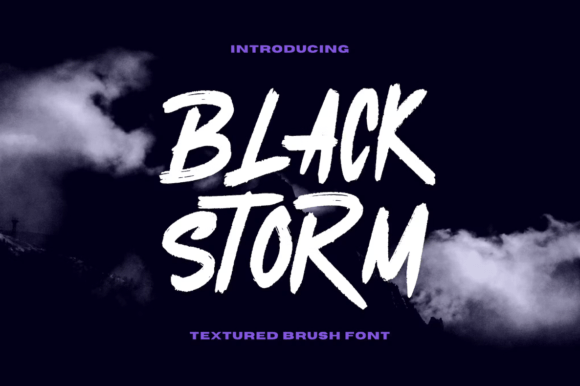
The Power of Black Storm: Unleashing a Bold and Assertive Font
I still remember the frustration of working on a project, pouring my heart and soul into it, only to be held back by one thing: the font. I was creating a poster for a men’s grooming product, and I needed a typeface that exuded masculinity and strength. After hours of searching, I stumbled upon Black Storm, a natural textured brush font that instantly caught my attention. Its bold strokes and strong lines perfectly captured the essence of masculinity, and I knew I had found the perfect fit.
An Honest Review of Black Storm
- ✨ Strong and assertive look: Black Storm is perfect for designs that require a bold statement.
- ✅ Versatility and flexibility: This font can be used for various design styles, from posters to logos and ads.
- 🌟 Textured feel: The font’s textured brush effect adds depth and character to any project.
While Black Storm is an excellent font, there are a few things to keep in mind:
- 🤔 Limited use in body text: Due to its bold nature, Black Storm may not be the best choice for lengthy body text.
- ⚠️ Sometimes inconsistent texture: The textured effect can be slightly inconsistent, which may affect the font’s appearance in certain designs.
- Experiment with the font’s OpenType features and glyphs to add more character to your design.
- Explore the font’s stylistic alternates and glyphs to add more variety to your design.
The Backstory of Black Storm
Black Storm was designed by a team of creatives who wanted to create a font that embodied the spirit of masculinity. Inspired by the raw power of nature, they crafted a typeface that’s both bold and beautiful. The font’s textured brush effect was designed to evoke the feeling of a stormy night, with strong lines and bold strokes that command attention.
| Font Name | Black Storm Font |
| Author | Home Work Creative Studio |
| What is Black Storm font best used for? | Black Storm is perfect for designs that require a strong and assertive look, such as posters, logos, and ads targeted toward a male audience. |